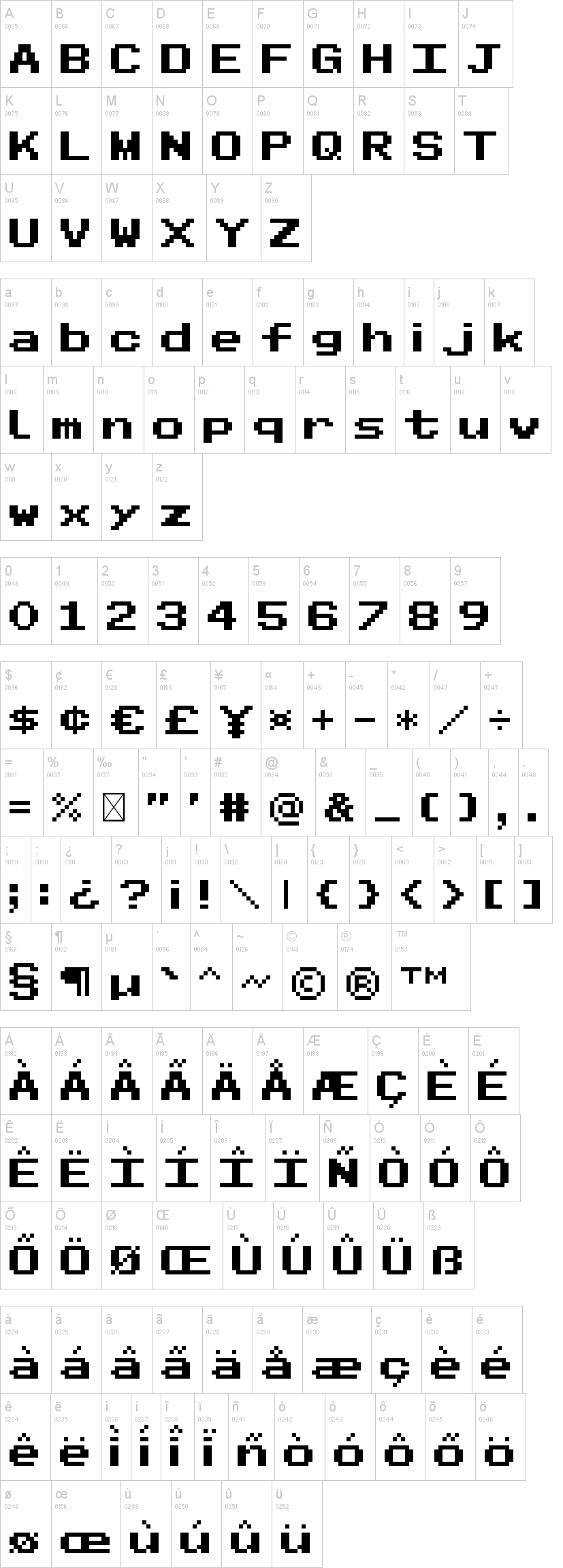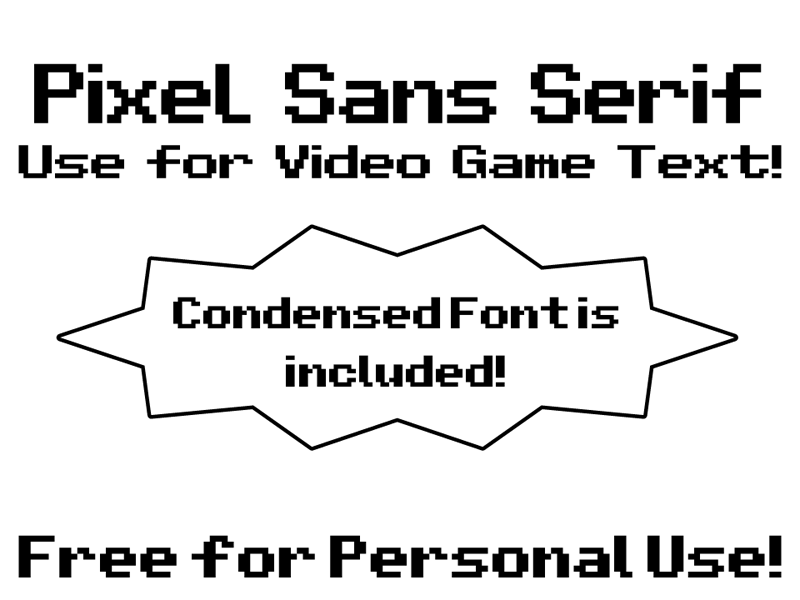
Pixel Sans Serif Condensed.ttfNote of the authorIt is the new pixel font which is very regular and cool. Suitable for use in video game arcade, retro and computer for DOS games. Made using Fontstruct.